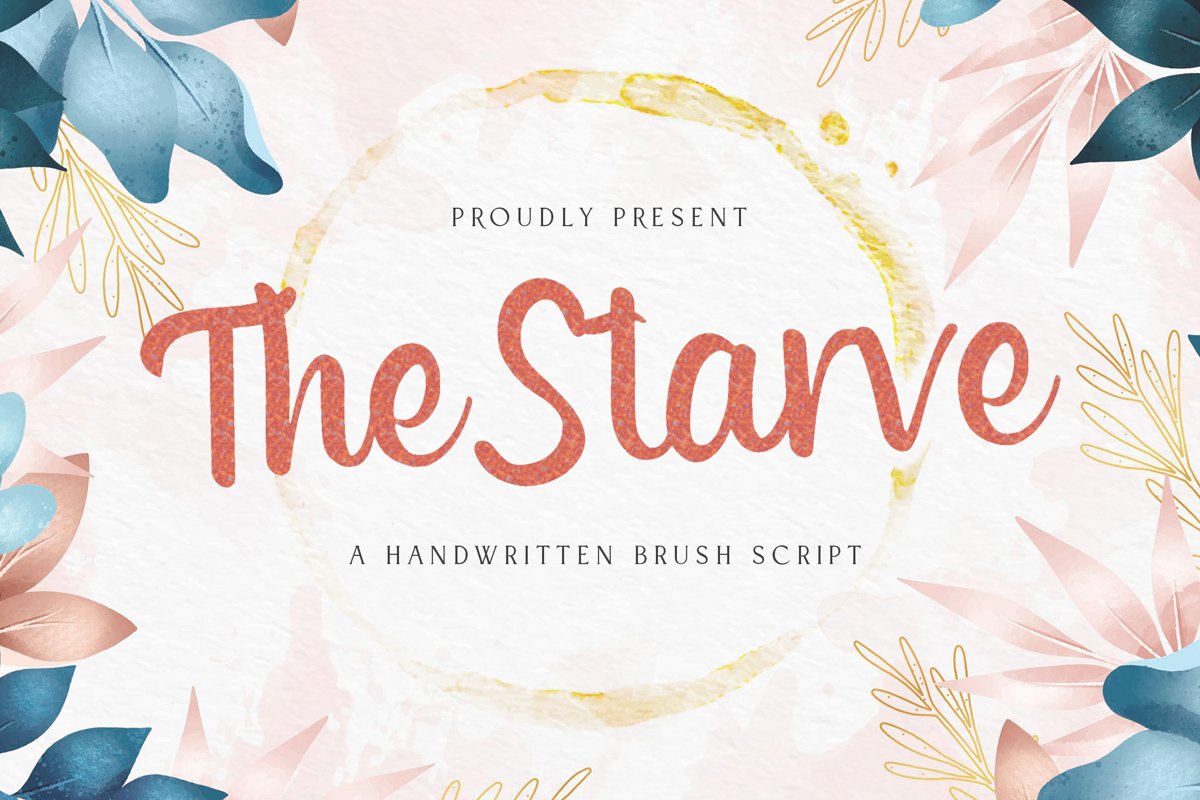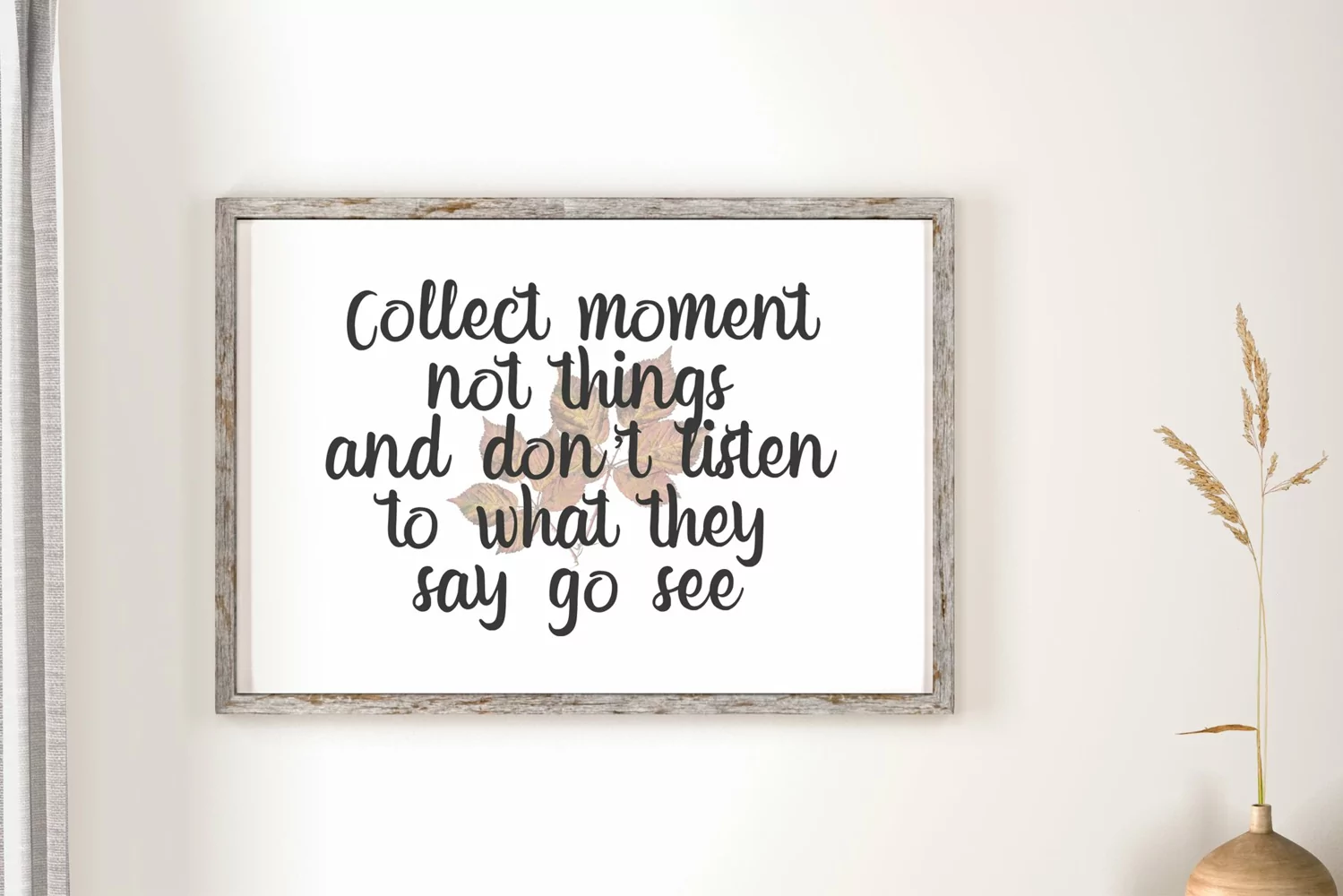
Starve is a Handwritten Brush Script. Perfect for display, quotes, print, t-shirt, packaging, merchandise, logo, logotype, badges, emblem, wedding needs, crafting needs, business card, floral, bouquet and many more.